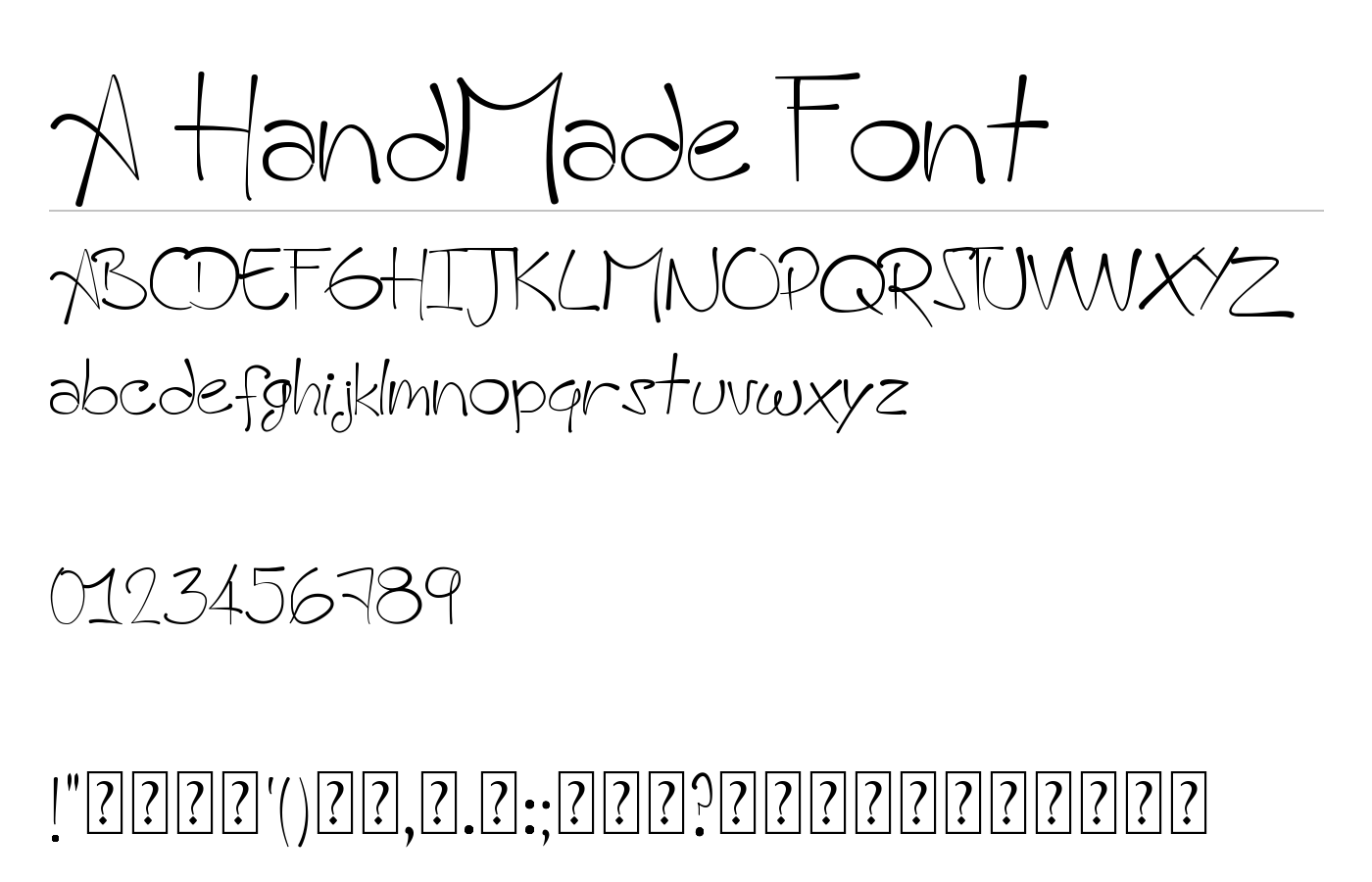
A HandMade Font is a whimsical, handwritten sans serif typeface featuring thin, irregular strokes that create a playful and casual feel. Its tall x-height and quirky letterforms, including unique uppercase shapes and loose spacing, lend a creative, personal touch perfect for informal branding, children’s materials, and artistic projects seeking an inviting, handcrafted vibe. This font works best in headlines and creative displays where personality and approachability are key.
A HandMade Font